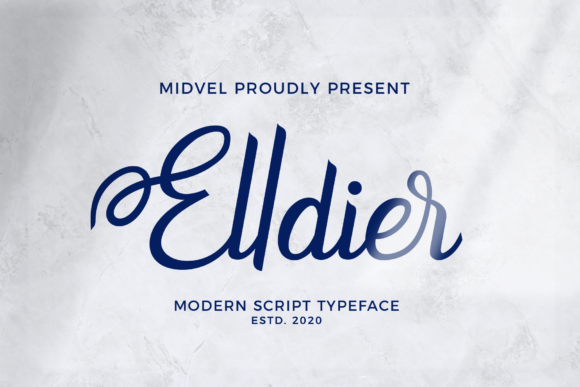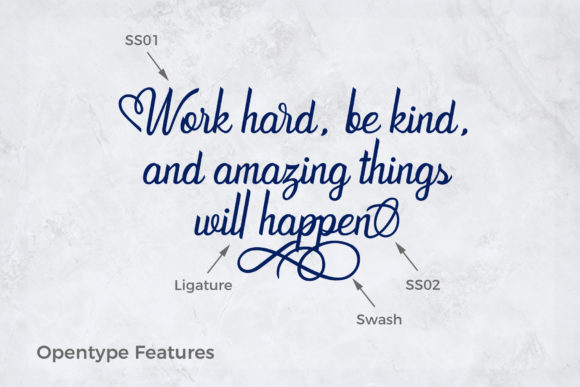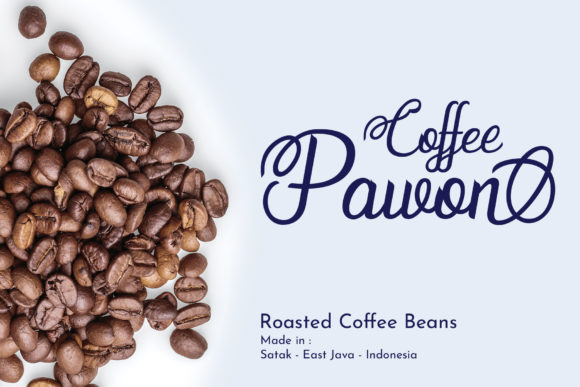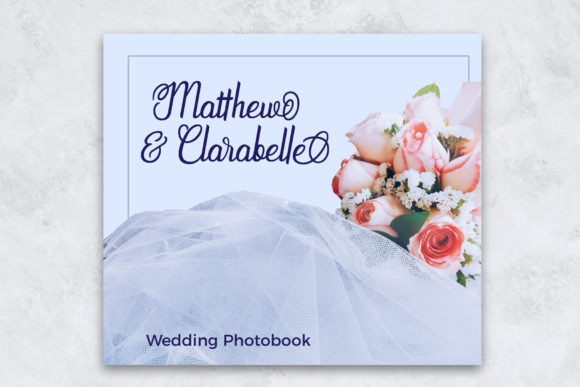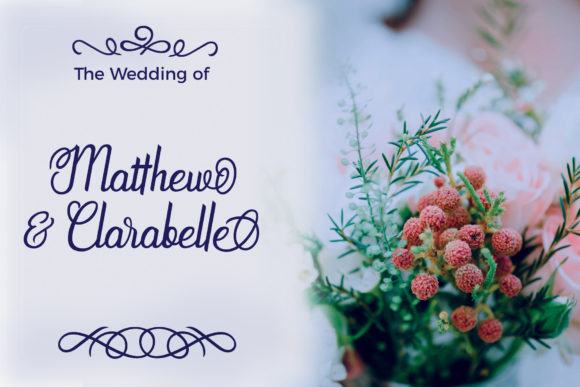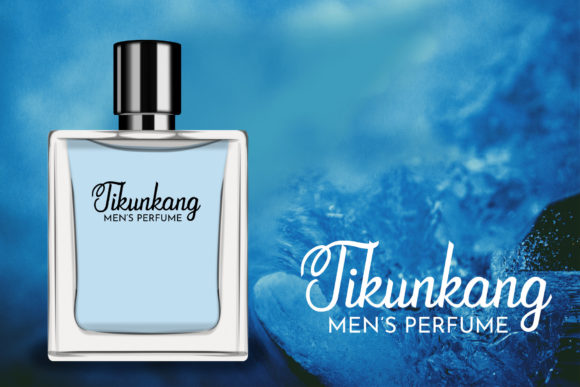
Elldier Font
About Elldier Font
Elldier is a beautiful, well balanced and vintage styled script font. It is defined by smooth curves and is perfect for fashion branding or editorial designs. Elldier is PUA encoded which means you can access all of the amazing glyphs and ligatures with ease!